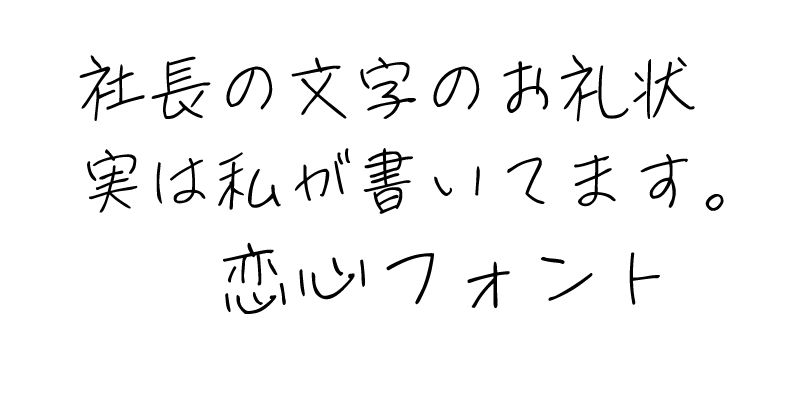
TA Koigokoro Font Free Download
TA Koigokoro Font Free Download is an elegant, hand-drawn script typeface inspired by the soft fluidity of Japanese calligraphy. With its graceful curves and delicate strokes, TA Koigokoro is ideal for projects that require a refined, personal touch—such as wedding invitations, romantic branding, greeting cards, or any design seeking to evoke warmth, beauty, and sophistication.
This font combines traditional brushstroke techniques with a modern design approach, offering a perfect balance of elegance and readability. It supports both Japanese and Latin scripts, making it an excellent choice for bilingual or international projects.